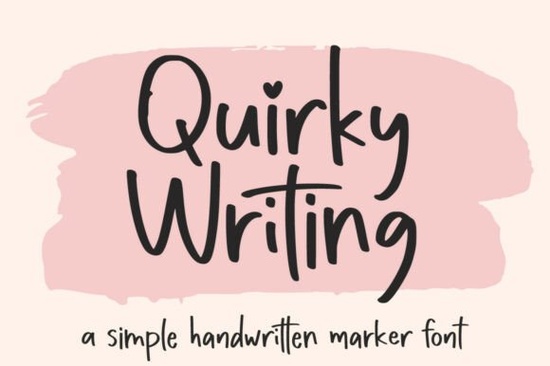
If you need a typeface that feels hand-drawn but keeps a clean edge, Quirky Writing Font delivers exactly that. It balances bold, playful strokes with quiet elegance, making it a reliable choice for designers, crafters, and small business owners who want readable text that still feels personal. The letterforms are neatly spaced, which saves time when laying out quotes, product labels, or social graphics.
What makes this handwritten style work for everyday projects?
Many script typefaces lean too heavily into casual doodles or rigid calligraphy, but this one sits comfortably in the middle. The thick downstrokes give it presence on printed merchandise, while smooth curves keep it legible at smaller sizes. Because the character set is fully PUA encoded, you can access every alternate and flourish directly from your system keyboard. You do not need specialized design software to reach the full glyph panel. If you are building a brand identity and want to test different moods, you might also explore how a relaxed handwritten option like Midruns compares when paired with clean sans-serifs.
Where does a playful script fit best in a creative workflow?
This style shines when you want to add a personal touch to commercial or hobby projects. Print-on-demand sellers use it for quote tees and tote bags because the bold weight holds up well during production. Crafters prefer it for vinyl decals, wedding signage, and scrapbook titles where a neat handwritten look matters. Small businesses often choose it for packaging stickers and Instagram templates. When mixing typefaces, pair it with a simple geometric sans-serif for body copy. If your project calls for a vintage journal aesthetic, you could also test how The Native Record handles layered textures.
Is this the right choice for your next layout?
If your goal is to keep designs readable, friendly, and polished, this typeface checks those boxes. It avoids overly decorative traps that make scripts hard to scan, and the consistent baseline keeps lines looking intentional. You can view the full character set and licensing details for Quirky Writing Font before downloading. Test it with your actual copy, not placeholder text, so you can spot spacing quirks early.